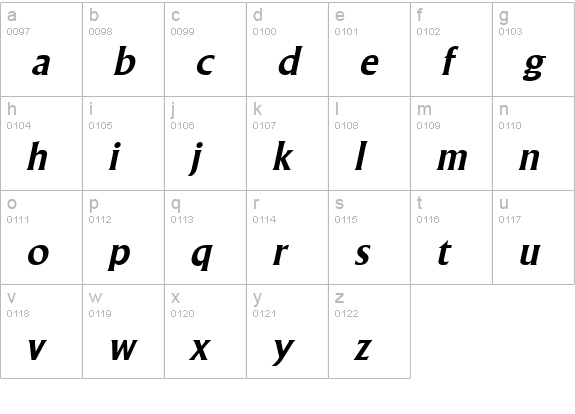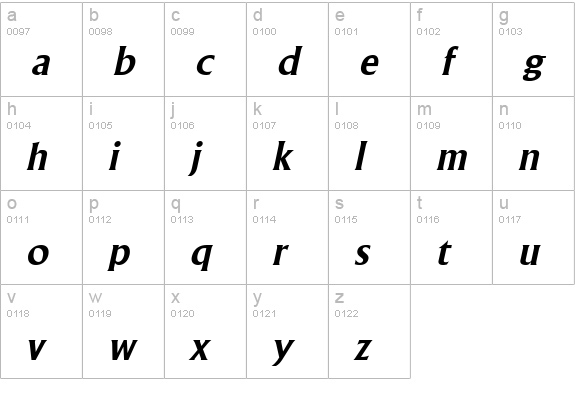
Alberta Bold Italic is a strong, high-contrast, italic variant in the Alberta typeface family \xE2\x80\x94 well suited to headlines, attention-grabbing titles, and strong calls-to-action.
Introducing Alberta Bold Italic font, a striking and modern typeface that exudes confidence and style. Its bold weight and italicized form make it perfect for making a statement in headlines, titles, and branding materials. With its sleek lines and distinctive curves, Alberta Bold Italic demands attention and adds a touch of sophistication to any design project. The best part? Alberta Bold Italic font is available for free download at FontsMarket.com. Whether you are working on a print or digital project, this versatile font will elevate your design and leave a lasting impression on your audience. Don't miss out on the opportunity to enhance your creations with the bold and beautiful Alberta Bold Italic font today!